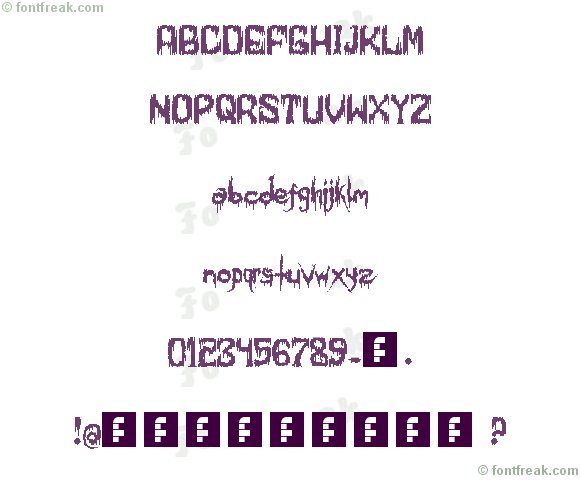
About Horror 23
Horror 23 is a striking display font by Unfurl, designed to evoke feelings of suspense and excitement. This decorative typeface falls firmly within the horror genre, making it a perfect choice for projects that require an eerie or unsettling atmosphere. With its bold, exaggerated letterforms, Horror 23 features a unique combination of sharp angles and rounded edges, creating a visually captivating contrast. The stroke weight is varied, with thicker sections that add a dramatic flair, while the spacing between letters is carefully designed to maintain readability without sacrificing the font's distinctive character.
This font is ideal for a range of creative applications. Graphic designers can utilize Horror 23 for eye-catching movie posters that need to capture the attention of horror enthusiasts. It also works wonderfully for Halloween-themed party invitations, bringing a chilling aesthetic to any gathering. Small business owners in the entertainment industry can leverage this typeface on merchandise or promotional materials that require a bold statement. Additionally, content creators can enhance their blog or website designs with Horror 23, providing a unique visual identity that resonates with fans of the genre.
What sets Horror 23 apart is its ability to balance artistry and functionality. The font captures the essence of horror while remaining legible, making it suitable for various media. Whether you’re crafting a chilling narrative or promoting a spine-tingling event, Horror 23 font free download is an essential addition to your creative toolkit. Embrace the thrill of the unknown with this exceptional typeface that brings your horror-themed projects to life.